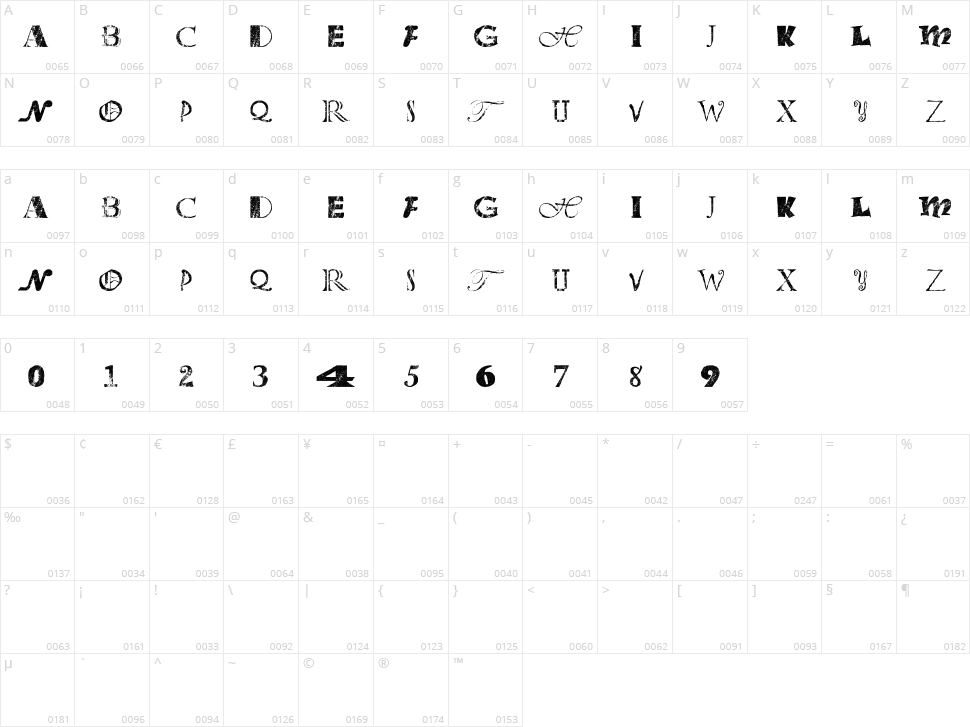
Office Junk
Office Junk Font
The Office Junk font is a grunge mixed style font. It was designed with FontLab Studio and Paint. This font is heavy to load. Due to the complexity of the font's characters, it comes with alphanumeric characters only and is only available in TrueType format. Read the terms of use at http://jlhfonts.blogspot.com/